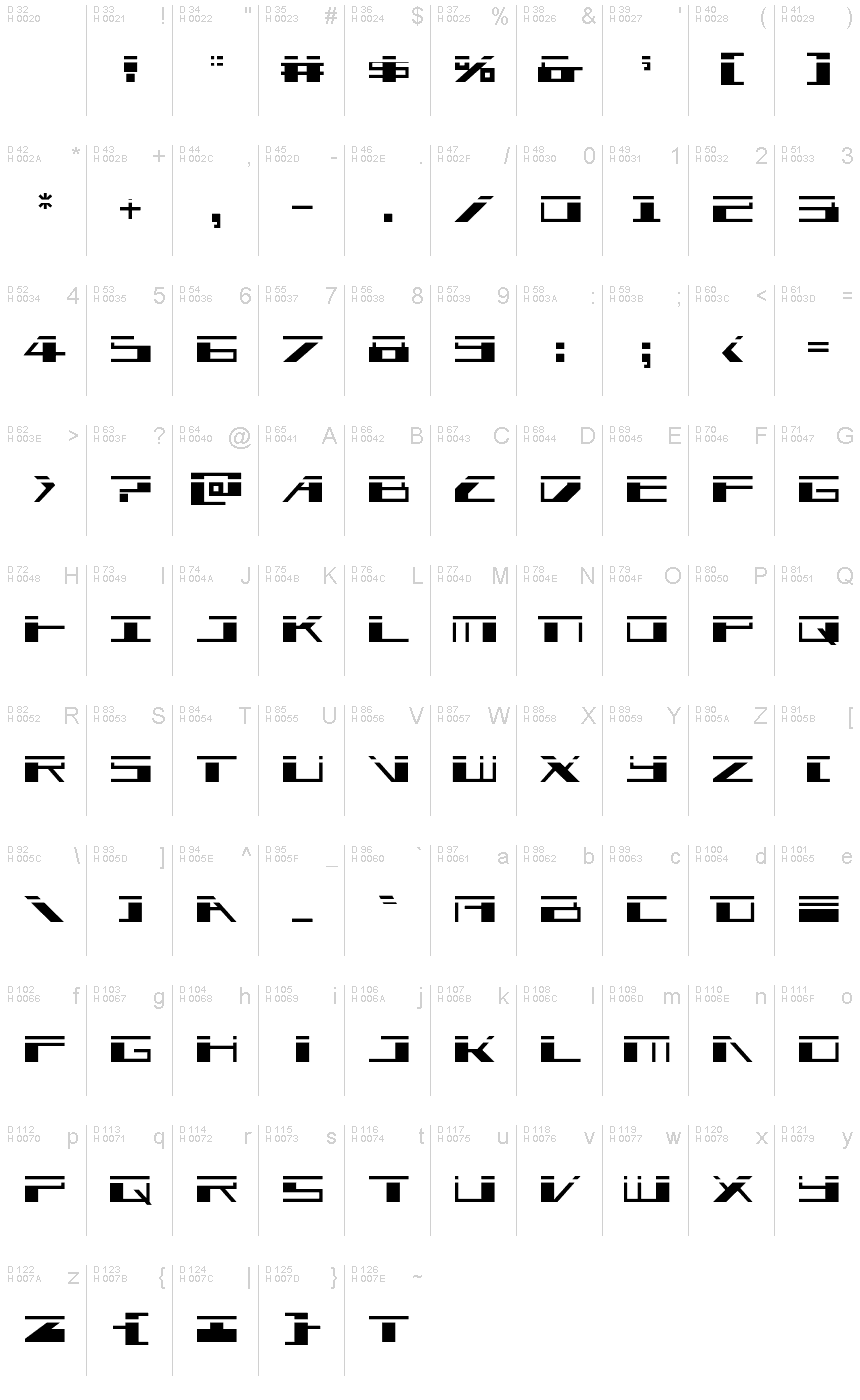
3AGLE Laser
3AGLE Laser emerges from the 3AGLE family, offering a bold and extra-expanded display font that truly captures the essence of a futuristic vision. Designed by Iconian Fonts, this typeface slices through the mundane with its laser-sharp precision, making it an ideal choice for projects that demand a high-impact, contemporary aesthetic.
Whether you're crafting titles for a sci-fi blockbuster, designing branding for tech startups, or creating standout graphics for digital platforms, 3AGLE Laser stands out with its unmistakable style. The bold weight anchors your designs with authority while its extra-expanded width fills space with confidence. Embrace the future of typography and let your creative endeavors soar with the cutting-edge appeal of 3AGLE Laser.